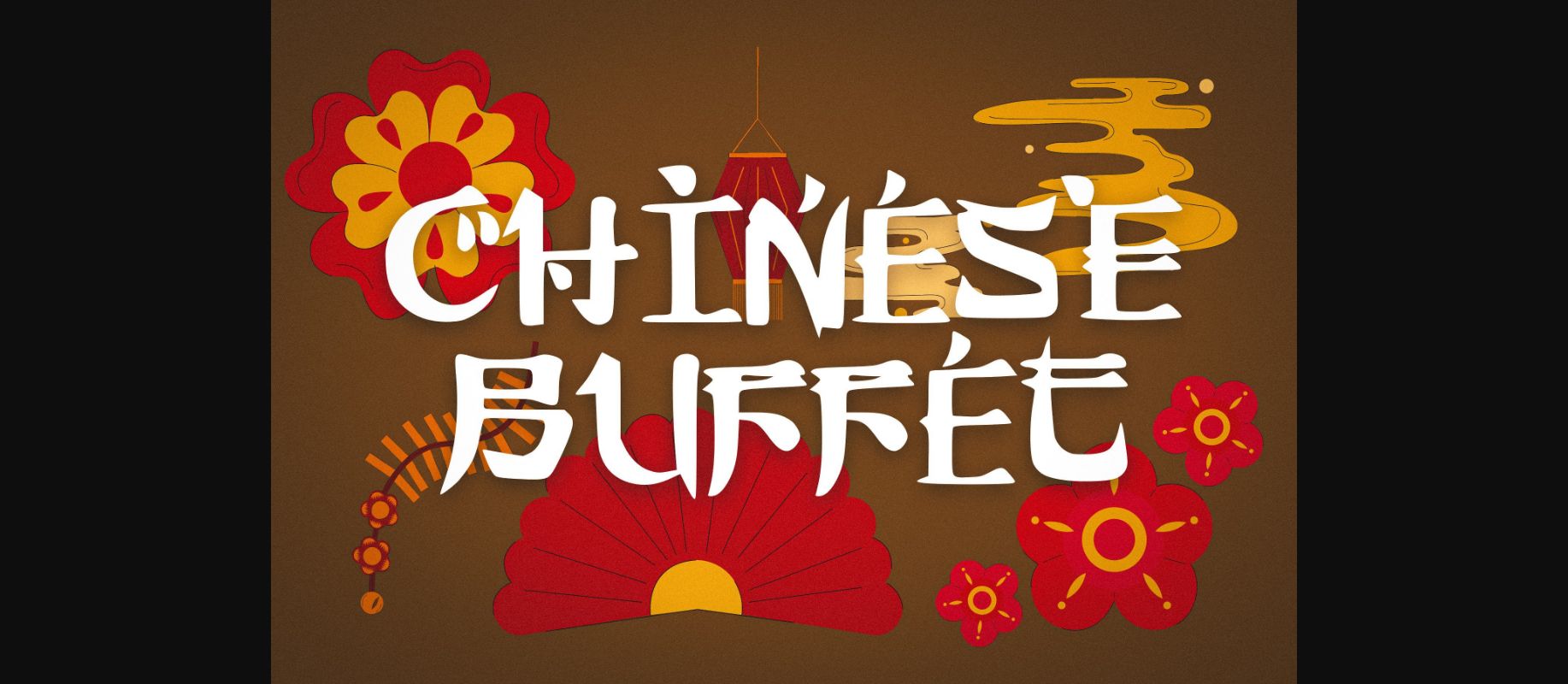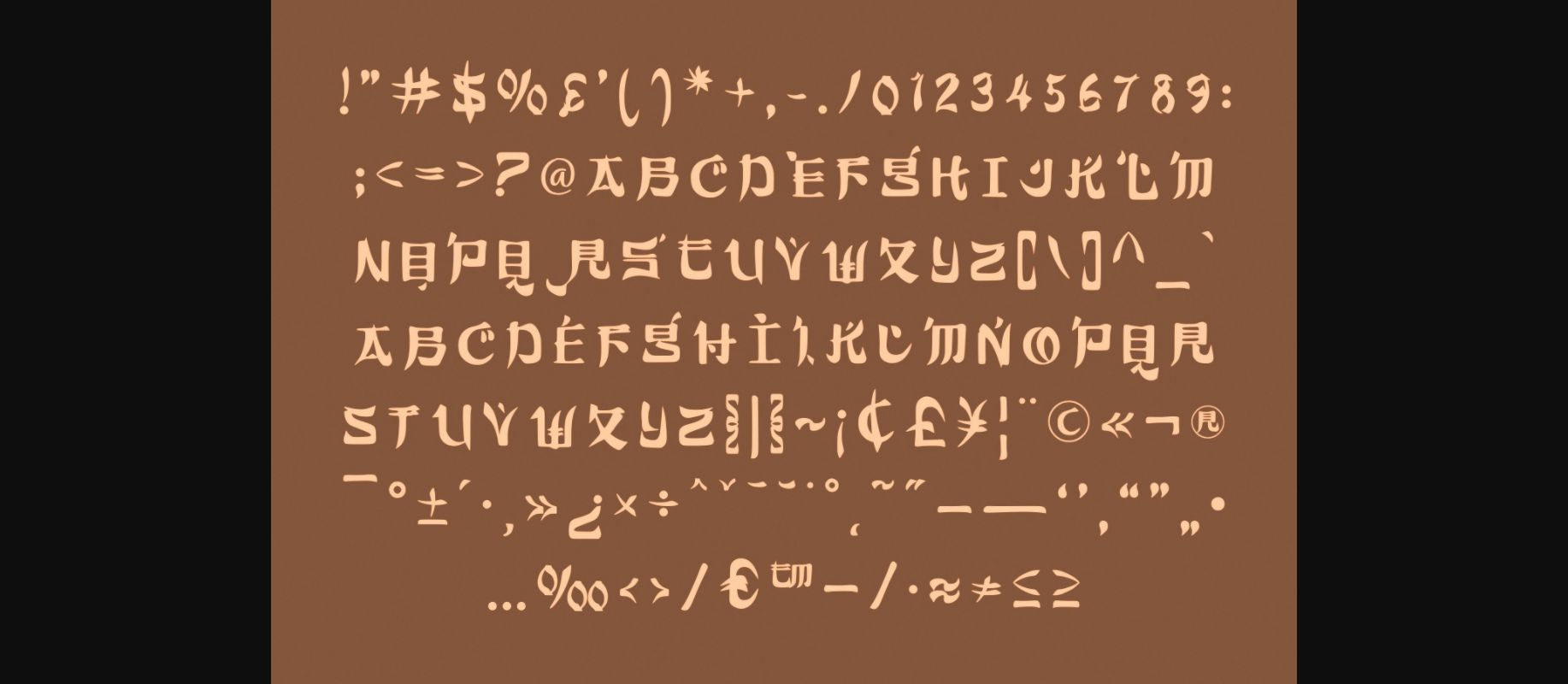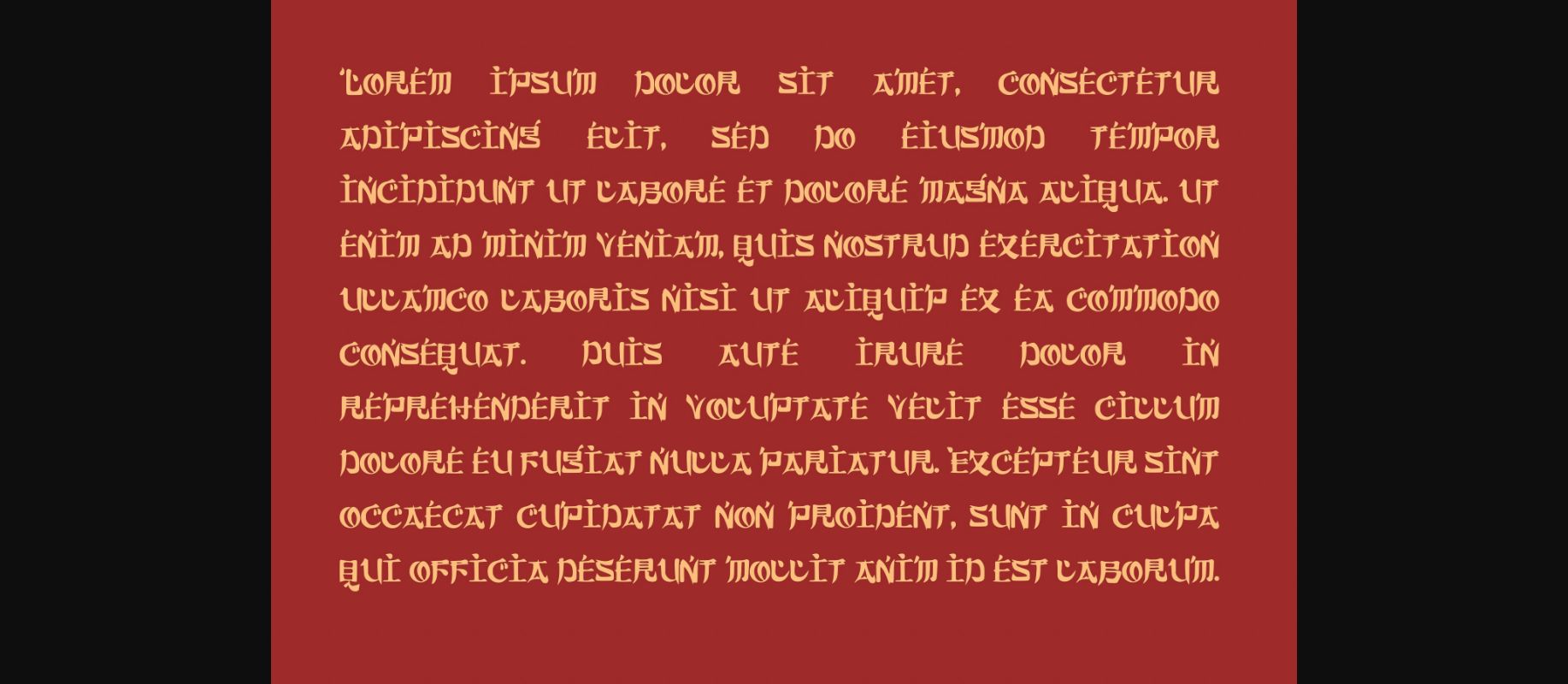
Chinese Buffet is a decorative display font inspired by traditional Chinese writing. Whatever the topic, this font will be a wonderful asset to your font library, as it has the potential to enhance any creation.